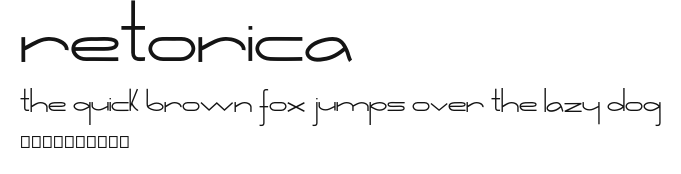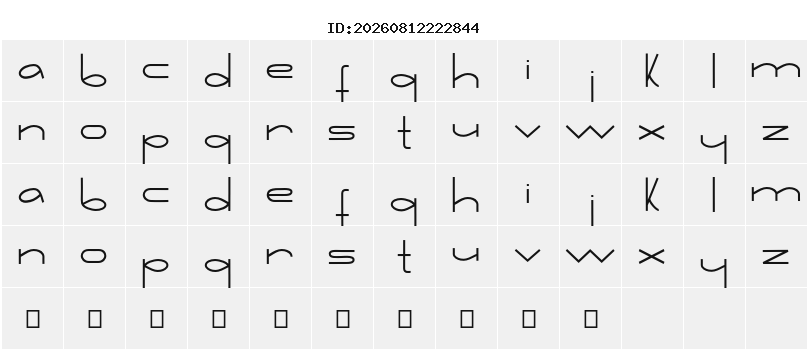
• Font Name: Retorica
• Full Font Name: Retorica
About Retorica.otf
Retorica.otf is a modern, elegant sans-serif font designed for ultimate readability and visual harmony. Perfect for branding, headlines, web design, and print materials.